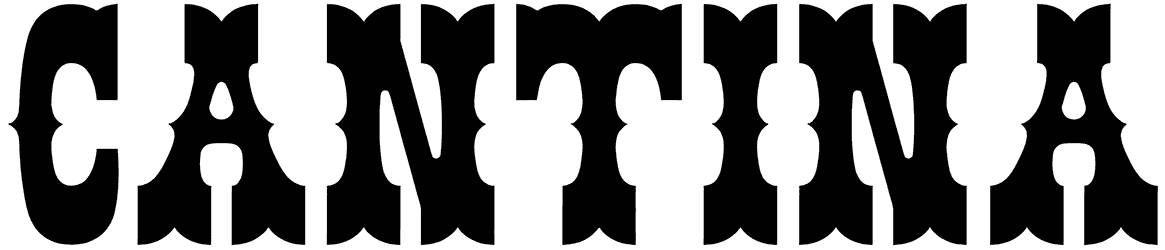
Buddy Holly Font
To leave a lasting impression on your followers, it would be enough to use a sweet vintage letterform like this retro font. This choice will give a timeless and classic vibe to your layout. Buddy Holly font, with its bold and decorative form, will be a good item for a café sign, restaurant menu, or so forth, even without lowercase letters.
Designed by: Maknastudio